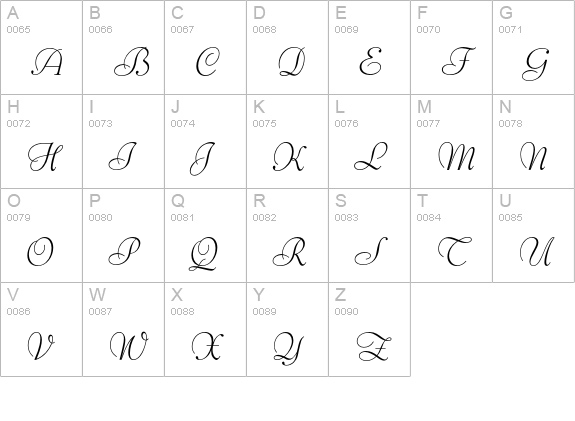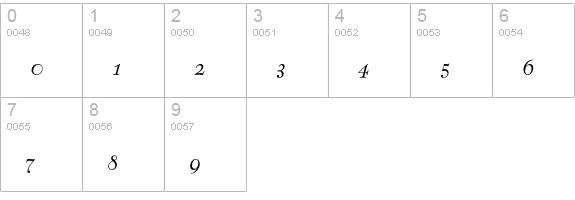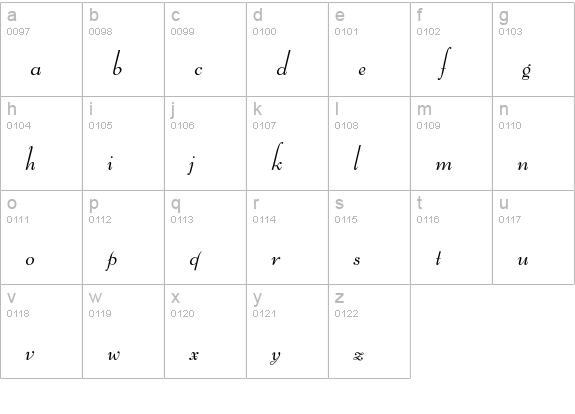
BernhardSchoenschriftEF-Light Font Details
BernhardSchoenschriftEF-Light is a refined, elegant variant in the BernhardSchoenschriftEF typeface family \xE2\x80\x94 well suited to elegant body text, refined sub-headings, and luxury branding.
BernhardSchoenschriftEF-Light is a beautifully crafted and elegant font that exudes sophistication and grace. With its delicate lines and graceful curves, this font is perfect for adding a touch of refinement to any design project. What makes BernhardSchoenschriftEF-Light even more appealing is that it is available for free download at FontsMarket.com. This means that you can easily access and use this stunning font without any cost, making it a valuable resource for designers, creatives, and typophiles alike. Whether you're working on a branding project, creating invitations, or designing a website, BernhardSchoenschriftEF-Light is sure to elevate your work with its timeless and classy aesthetic. Download this font today and add a touch of elegance to your designs.